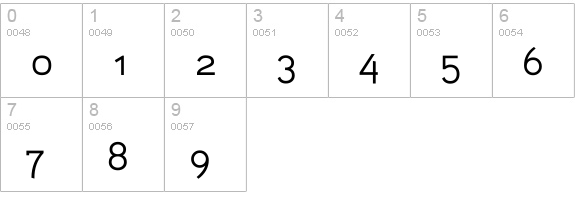
Aaux ProRegular OSF Font Details
Aaux ProRegular OSF font is a modern and versatile typeface designed for a wide range of design projects. With its clean and legible appearance, this font is perfect for both digital and print applications. Its neutral aesthetic makes it suitable for various purposes, from branding to editorial design. The Aaux ProRegular OSF font features old-style figures that add a touch of sophistication to any text. Its balanced letterforms and subtle details make it a reliable choice for conveying information effectively. Whether you are working on a website, brochure, or poster, this font will enhance your design with its timeless appeal. Best of all, the Aaux ProRegular OSF font is completely free to download at FontsMarket.com. You can easily access this high-quality typeface and use it in your projects without any cost. Don't miss out on the opportunity to elevate your designs with the elegant and versatile Aaux ProRegular OSF font. Download it today and see the difference it can make in your work.